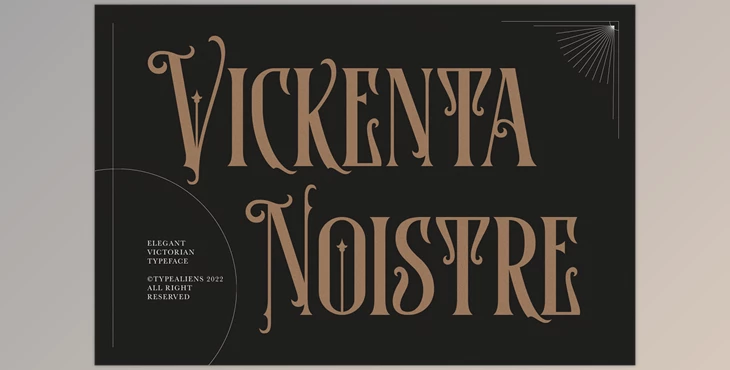
Vickenta Noistre, is a display and decorative font that is based on an old-fashioned serif font, with modified ornaments to create a more attractive appearance. The font, which can be classified in the category of a Victorian font can be described as giving an elegant and timeless impression This font is an all-caps font, which makes it look beautiful yet sturdy, and is suitable for classic and elegant designs like those used on labels for liquor or designs that go towards the style of art-deco.
This font is ideal for badges and logos using badge layouts. including some tribal or floral ornaments will make it more interesting.